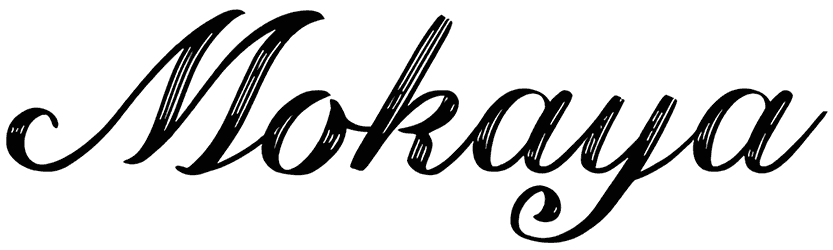
Mokaya Font
If you are looking for a gooey dry brush font with a calligraphy taste, then search no more, cause Mokaya is all yours. This feminine font shares a modern, luxurious feel and draws all attention to your work. Use it to create stunning designs such as personalized gifts, wedding invitations, album covers, branding materials, and other projects that need a natural, handmade touch.